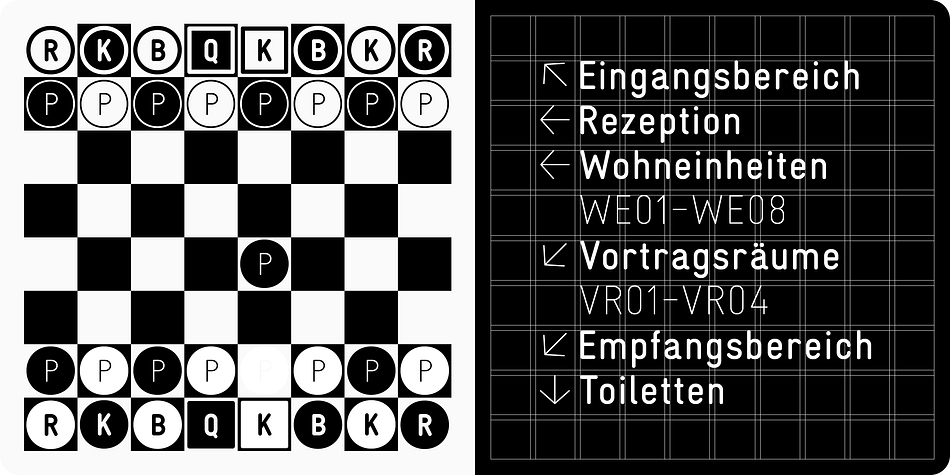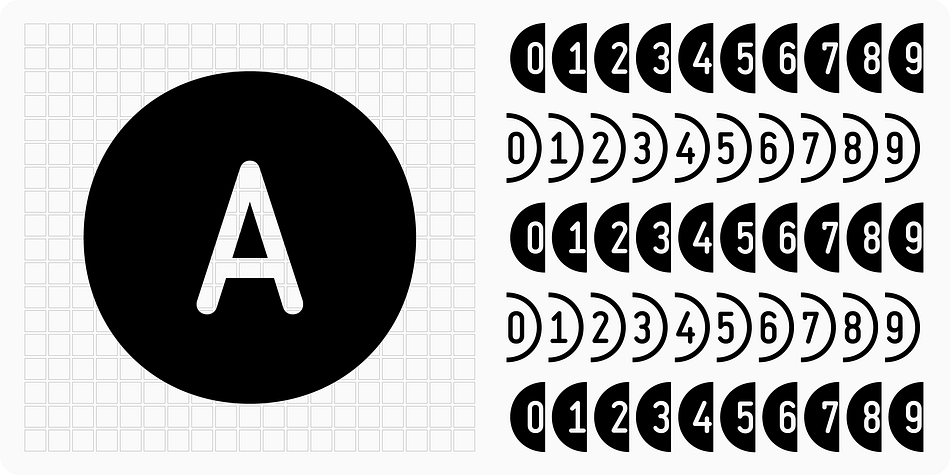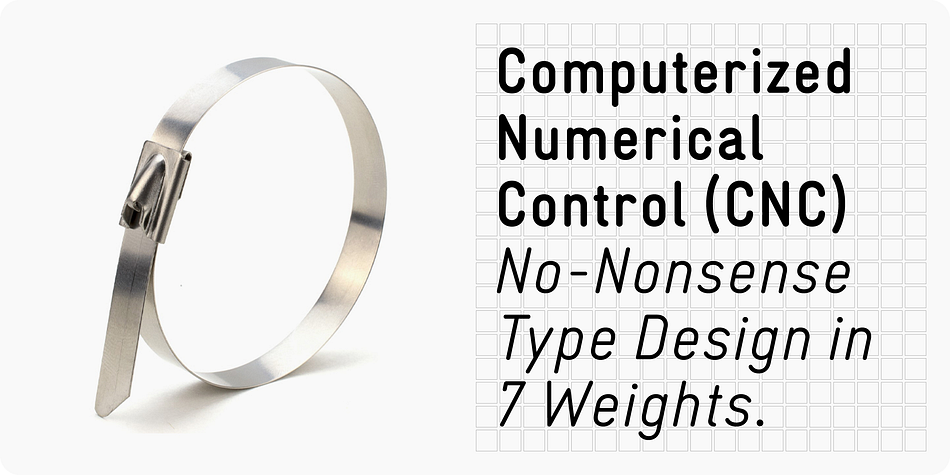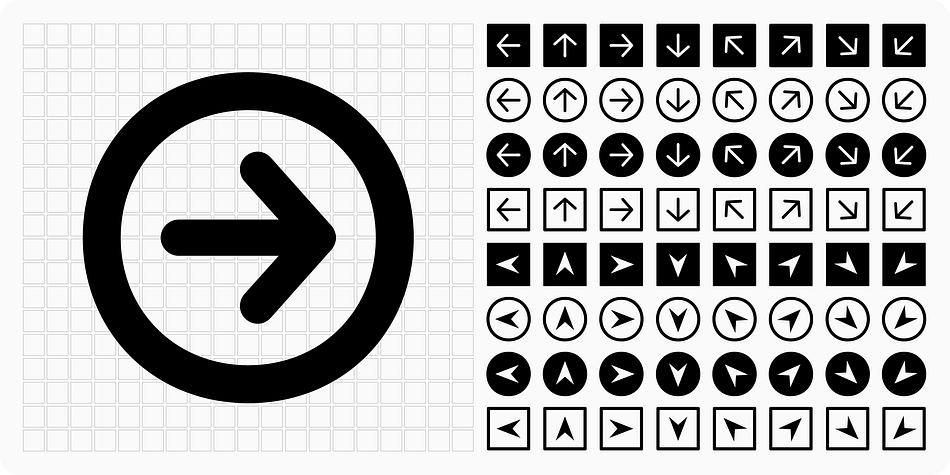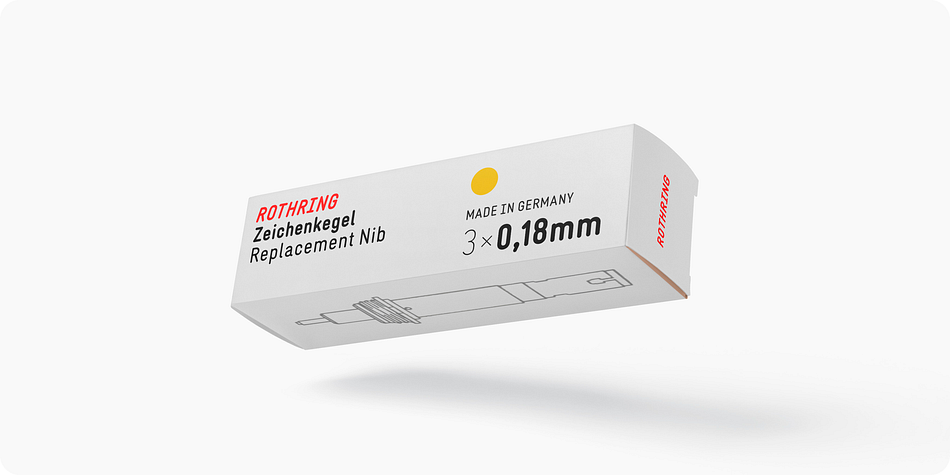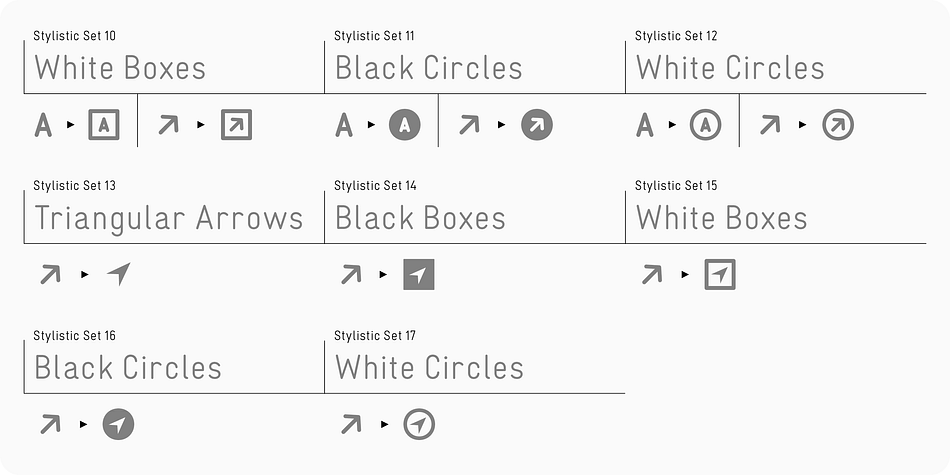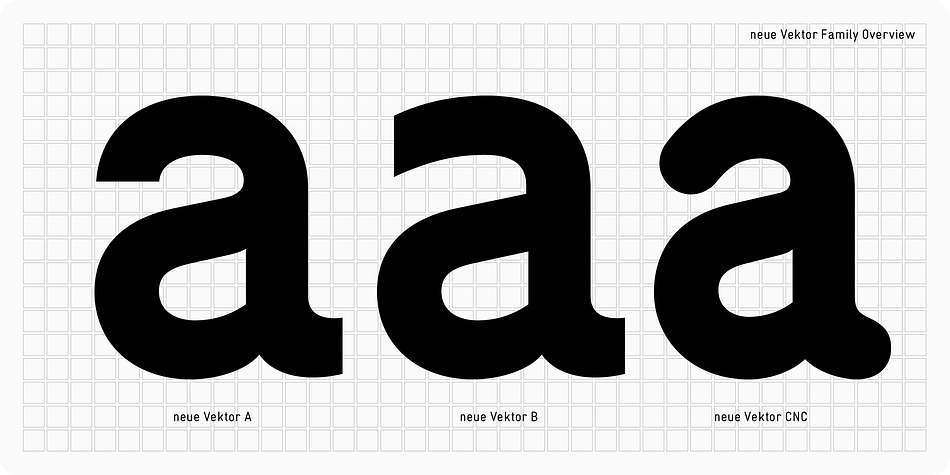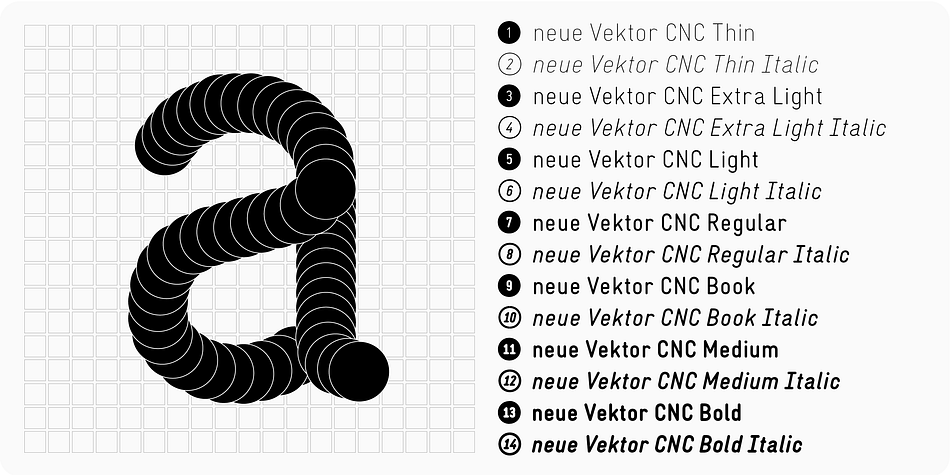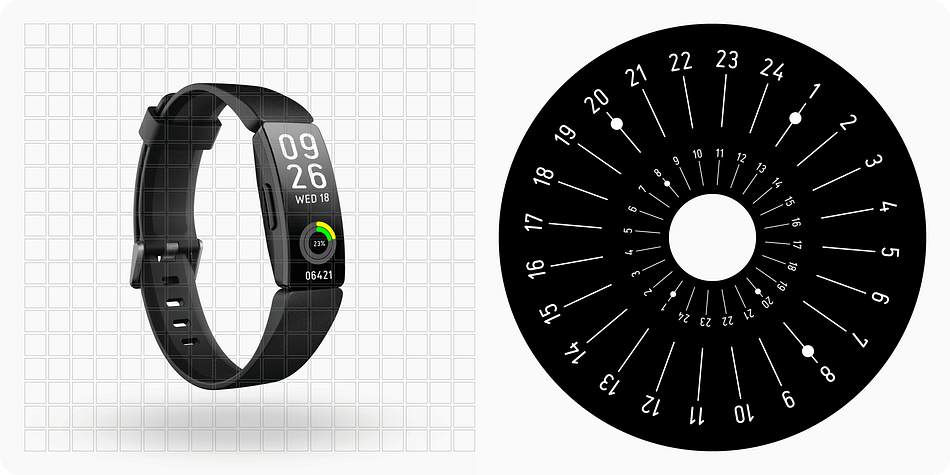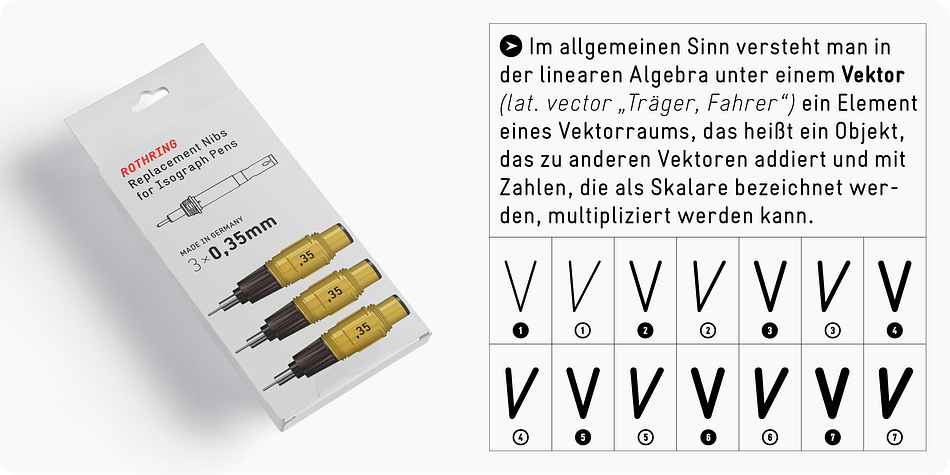
Designed by Alexander Roth, neue Vektor CNC is a sans serif font family. This typeface has fourteen styles and was published by Neue.
neue Vektor CNC is engineered, not designed. The family draws inspiration from the engravings one can find on German industrial goods such as drills, ball-bearings, nameplates and all kinds of infrastructural plaques. neue Vektor CNC is part of the neue Vektor type family which promises an identical character set, number of styles and OpenType functionalities. Drawn slightly narrower and with rounded stroke endings it is the go-to type family to convey an industrial, non-design look and feel: be it for identities, apps or packaging scenarios. Though quite austere in its character neue Vektor CNC has a friendly face for determined but kind communication.
neue Vector CNC comes in seven weights — ranging from Thin to Bold — with matching italics. Each font file includes no less than 17 Stylistic Sets giving access to alternative letter shapes (I, a, j, l, t, y, &) and a multitude of arrows (circled, boxed, triangular in positive and negative).